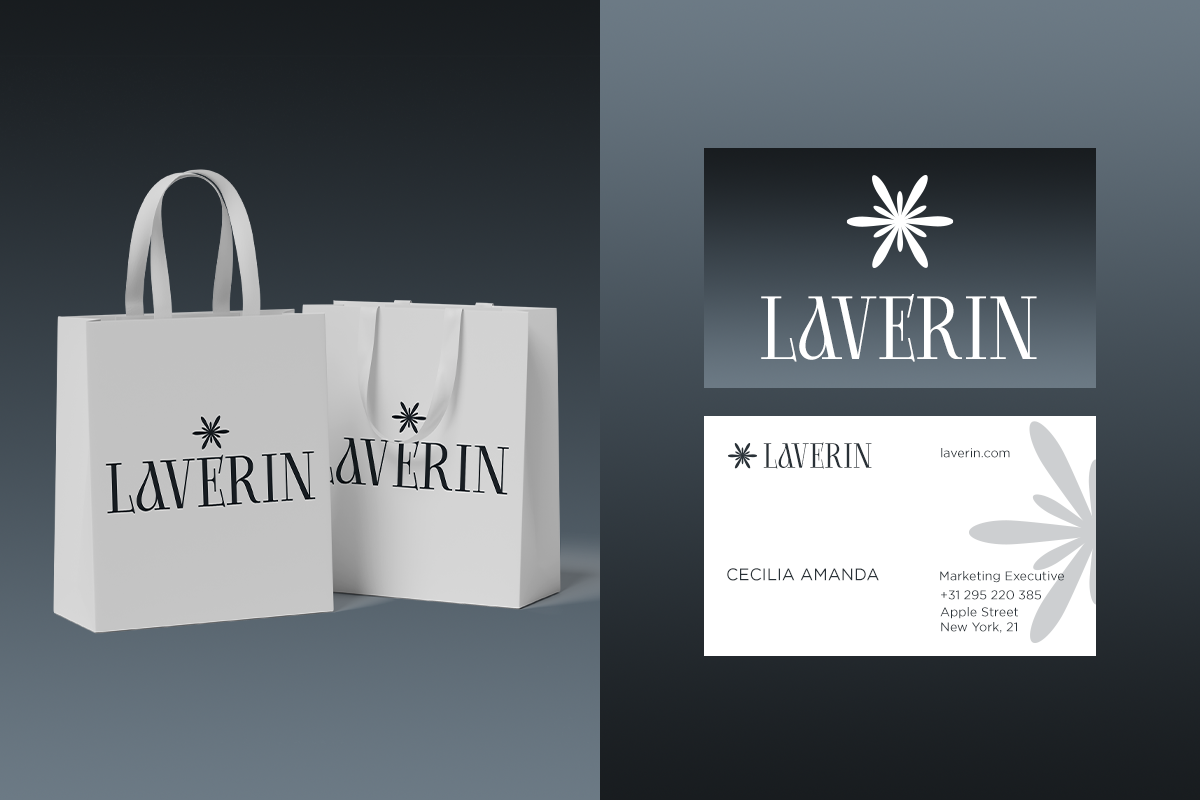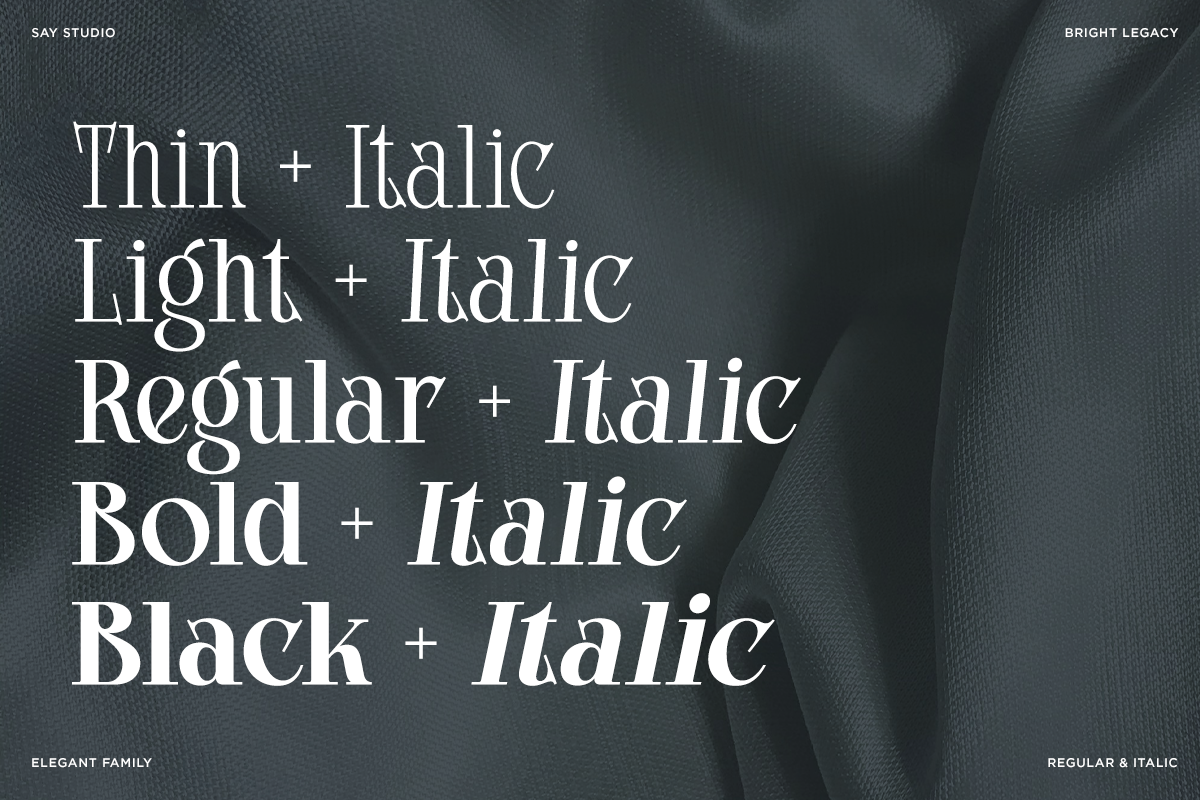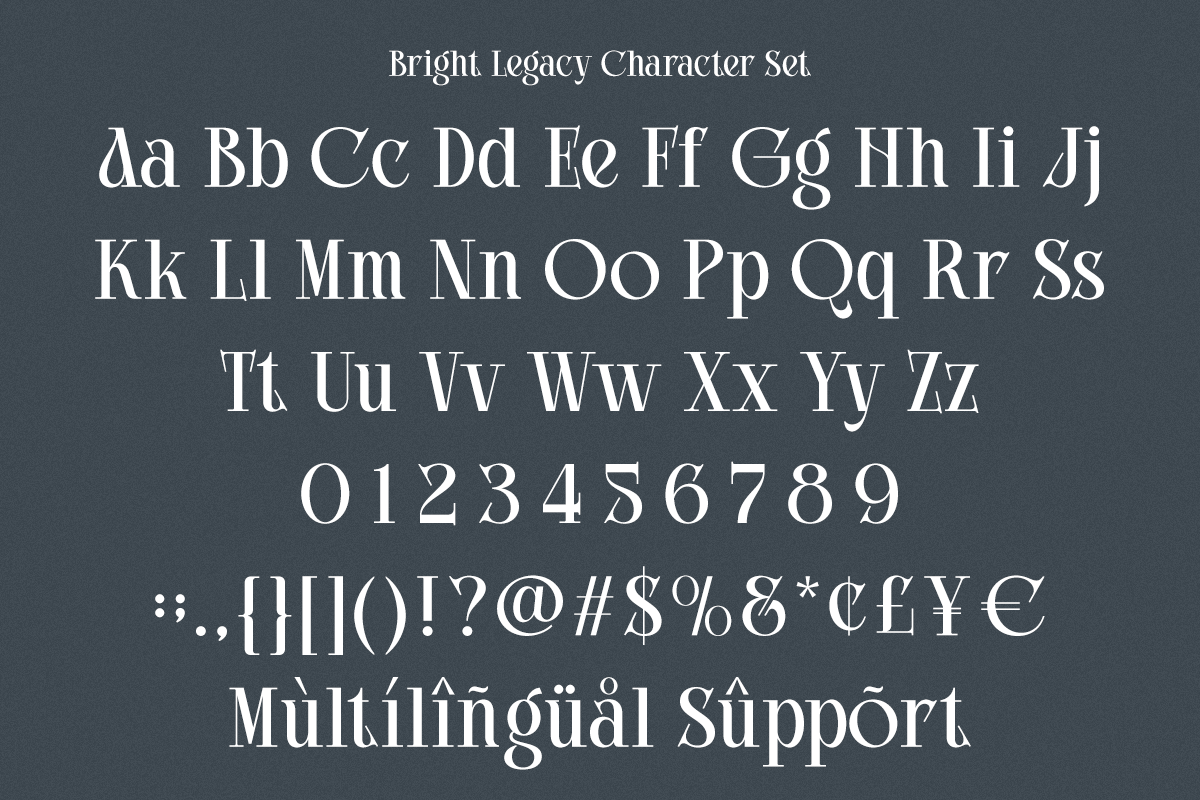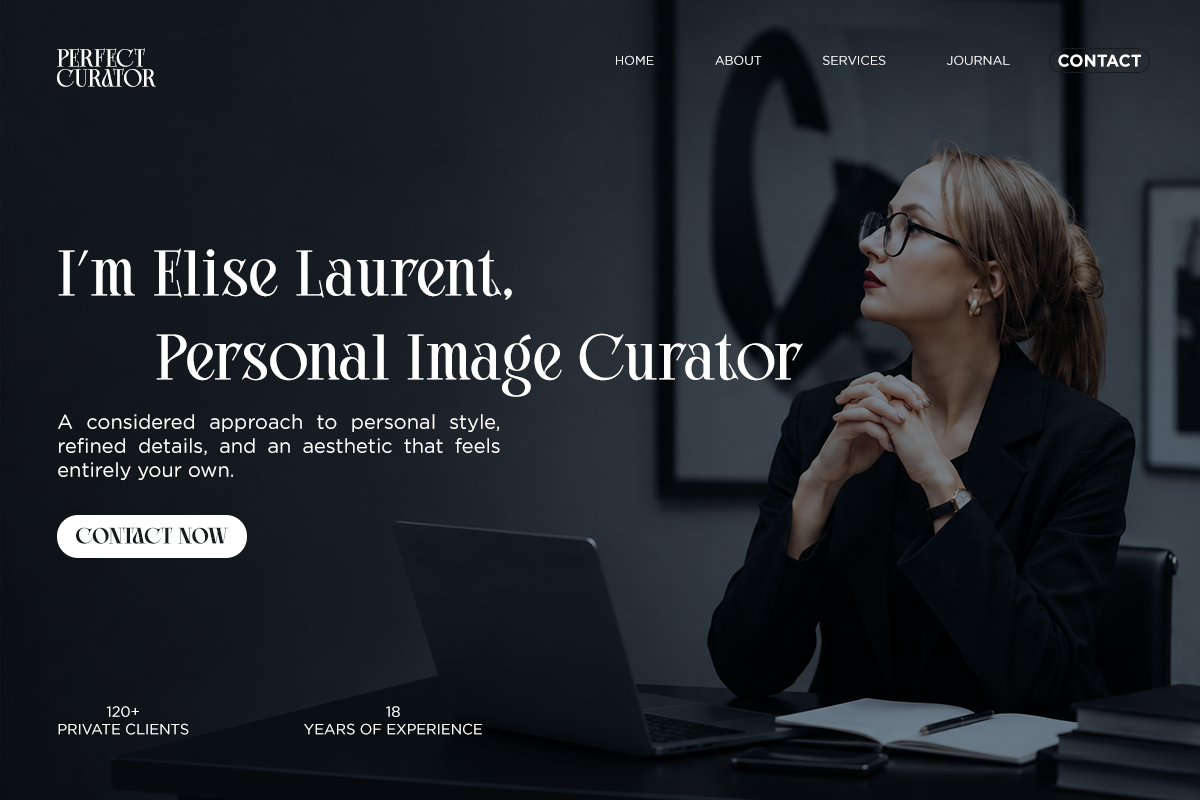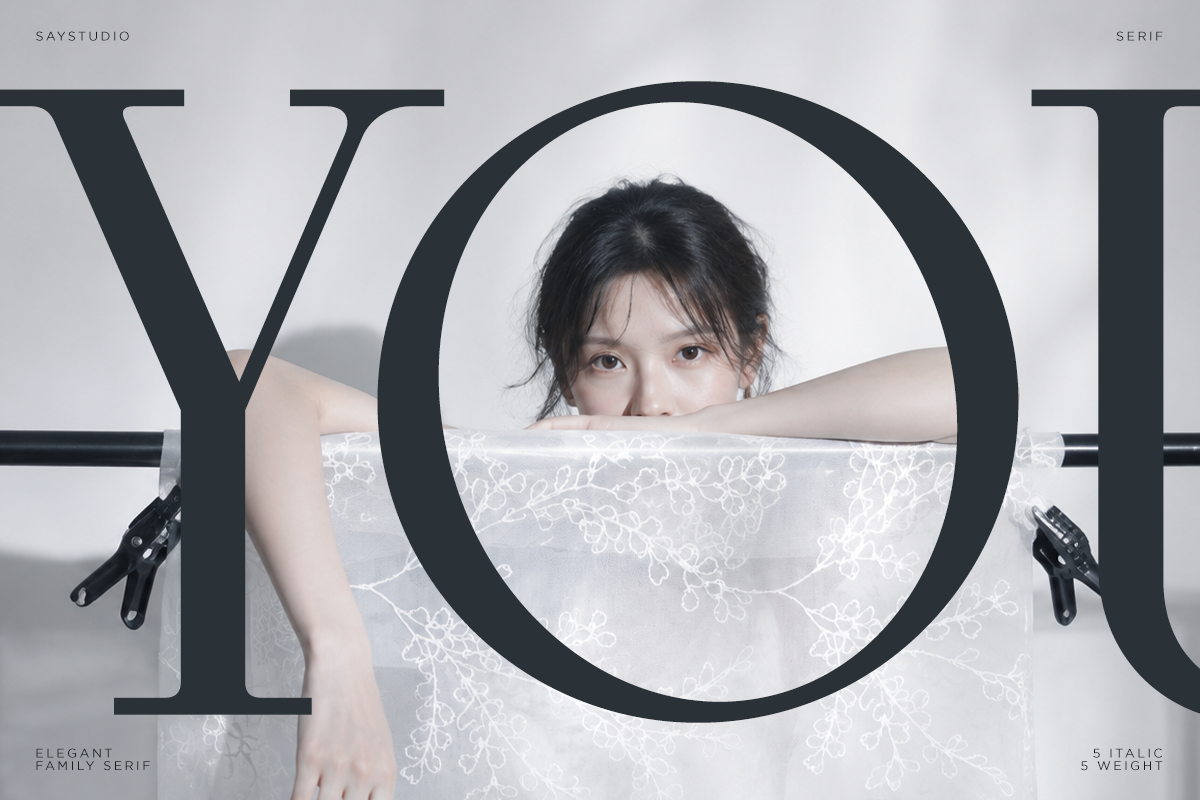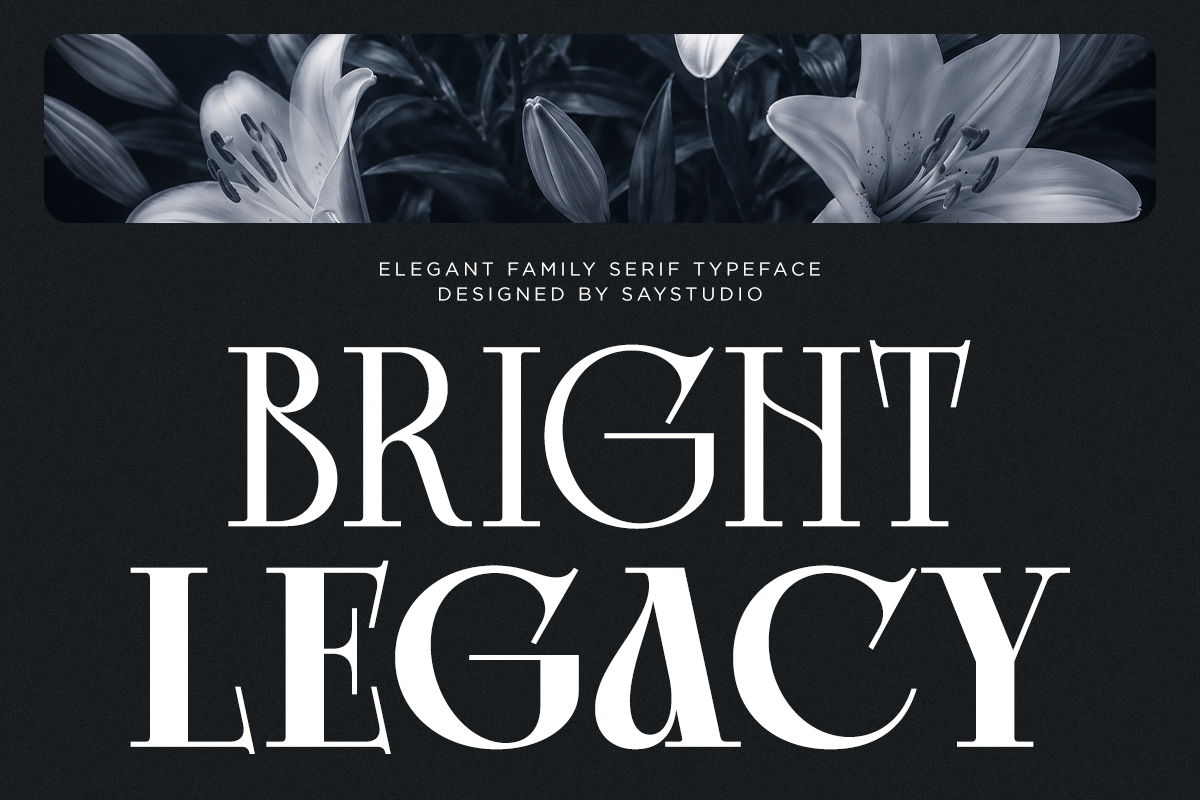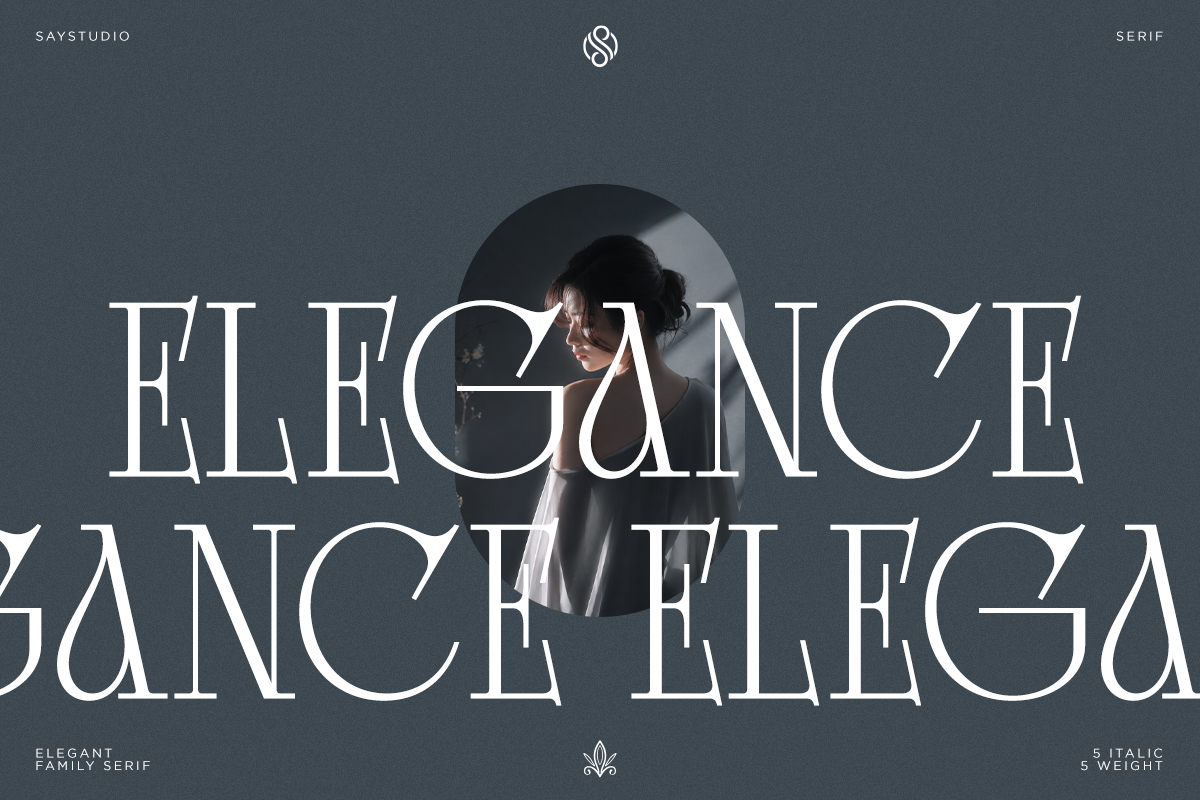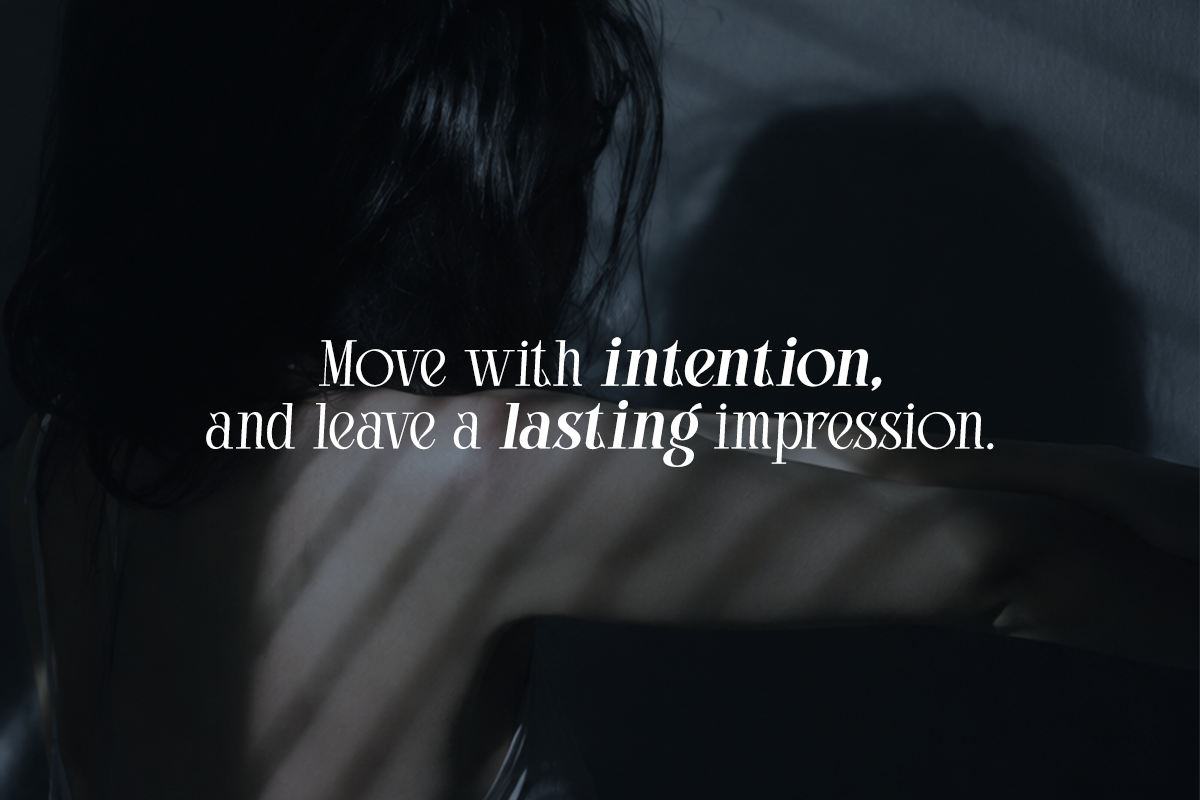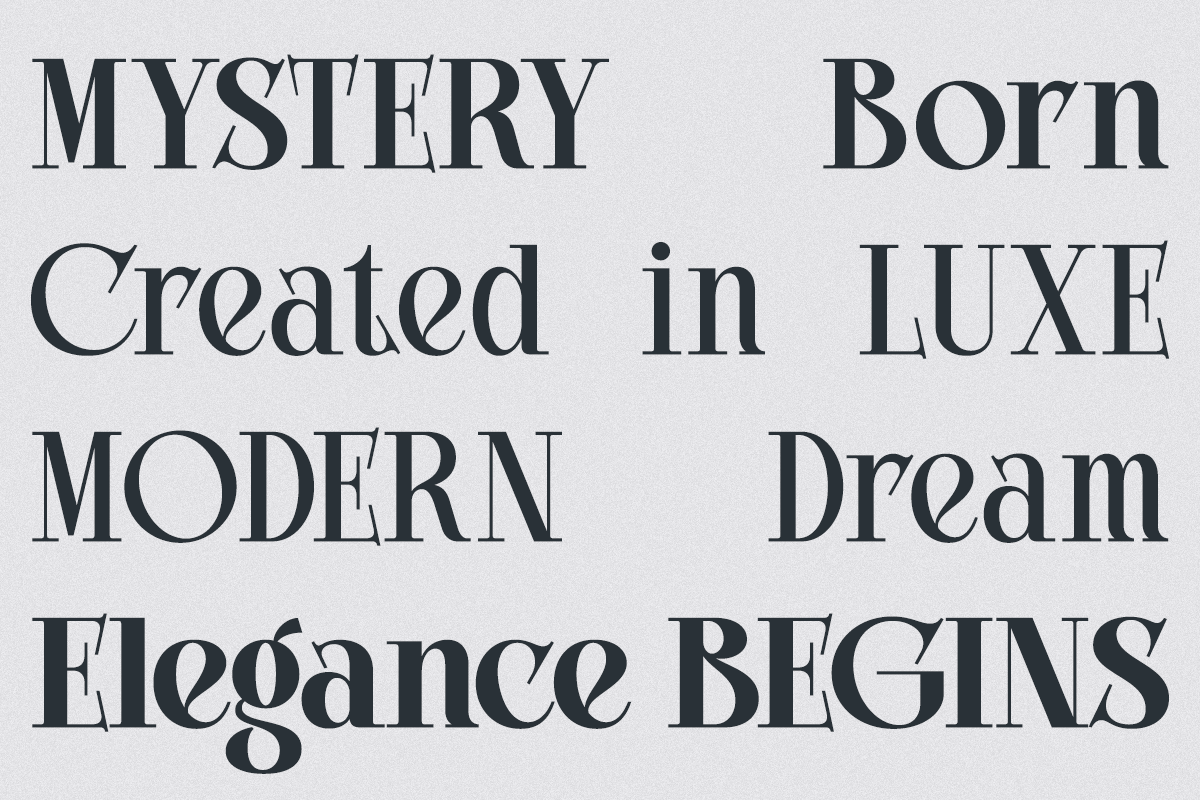
Bright Legacy - Family Luxury Font
Bright Legacy is an elegant luxury serif font designed for sophisticated branding, fashion editorials, beauty campaigns, premium packaging, wedding designs, and modern visual identities.
Featuring 5 variable weight styles, Bright Legacy gives you flexible control over typography, allowing you to create everything from delicate and refined layouts to bold and impactful headlines. The font is also available in Regular and Italic versions, providing even more versatility for creative projects.
With its high contrast, graceful curves, and timeless editorial character, Bright Legacy is perfect for luxury logos, fashion magazines, beauty branding, invitations, posters, social media designs, and premium advertising.
5 Variable Weights
Regular and Italic
Number, Symbol, and Punctuation